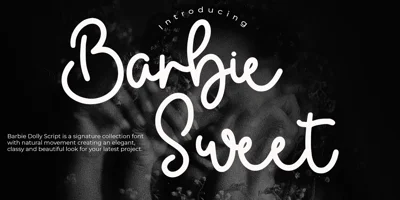
Barbie Sweet Font
Barbie Sweet Font is ideal for candy shop branding, children's party decorations, sweet sixteen celebrations, pink-themed events, doll collection packaging, girl's bedroom decor, cotton candy stands, princess birthday parties, cute bakery signage, and any delightful project that celebrates the magical world of childhood dreams and the irresistible charm of all things sweet and pink.
What makes Barbie Sweet Font exciting is its enchanting sweetness that captures the iconic glamour of fashion doll culture and the innocent joy of childhood fantasies come to life. This typeface embodies the spirit of playful femininity with bubbly letterforms that seem dusted with glitter and infused with the magical sparkle of dreams. The font's charming character makes it perfect for brands and projects that want to communicate fun, innocence, and the delightful world where everything is possible and every day feels like a fairy tale adventure.
The Barbie Sweet Font family includes multiple weights and playful variations, featuring light, regular, and bold versions along with decorative elements and alternate characters inspired by fashion doll aesthetics and candy confections. This comprehensive collection allows designers to create enchanting sweet typography that maintains the font's signature magical character while providing flexibility for various children's entertainment and sweet-themed design applications.
When exploring authentic doll-inspired typography, Barbie Sweet Font represents an exceptional opportunity to work with a typeface that genuinely captures the spirit of fashion doll glamour and childhood wonder. This font demonstrates innovative design thinking by incorporating the playful elegance and dreamy quality that define both iconic doll culture and the magical world of children's imagination and sweet treats.
Professional designers appreciate Barbie Sweet Font for its ability to instantly connect with young audiences and evoke feelings of nostalgia and childhood joy across various entertainment platforms. The font's sweet character makes it particularly effective for toy companies, children's entertainment brands, and confectionery businesses seeking to create memorable identities that resonate with both children and adults who cherish childhood memories.
The enduring appeal of Barbie Sweet Font lies in its perfect representation of childhood dreams and innocent glamour that continues to enchant generations of children and inspire creative play. This typeface serves as a celebration of imagination and the timeless appeal of fashion, friendship, and the belief that dreams can come true with enough sparkle and determination.
For creative professionals working with children's entertainment and confectionery brands, Barbie Sweet Font represents the ultimate typography solution that brings authentic doll-inspired charm and sweet magic to any application, ensuring designs reflect the enchanting wonder and delightful sweetness that define the most cherished childhood experiences and fantasy adventures.